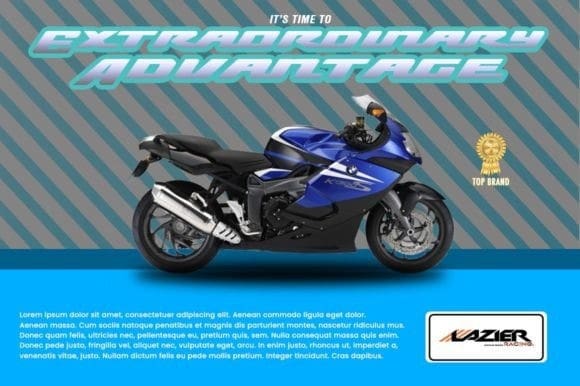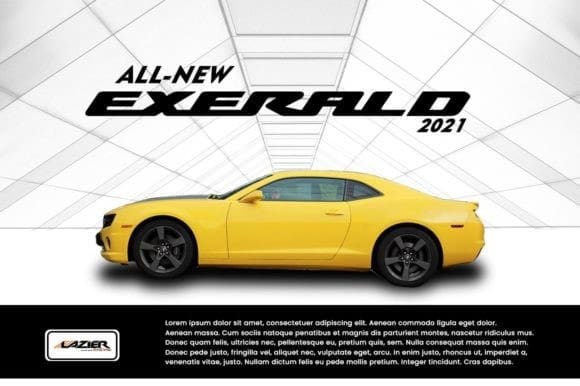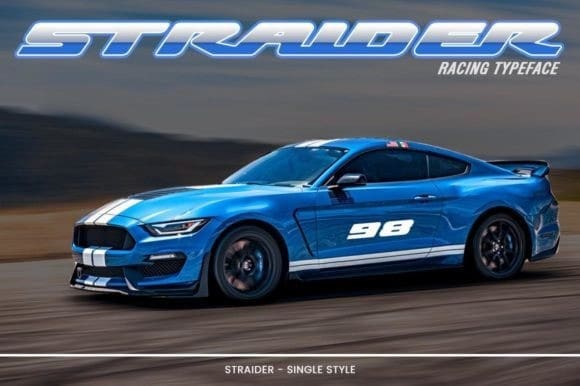
Straider Display Font
Straider Display Font, inspired by the mid-era of vintage and modern automotive visual branding. This bold and strong display font was built with a total aim to speed cars, vehicles, and automotive vibes. Will be a perfect match for automotive events, branding, logo, cars and motorcycle posters, advertising, or anytime you want some more “speed” in your visual project.